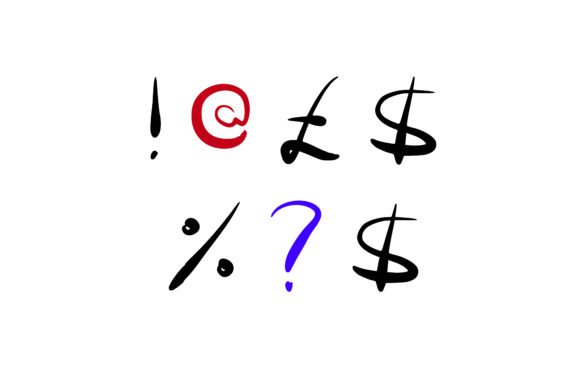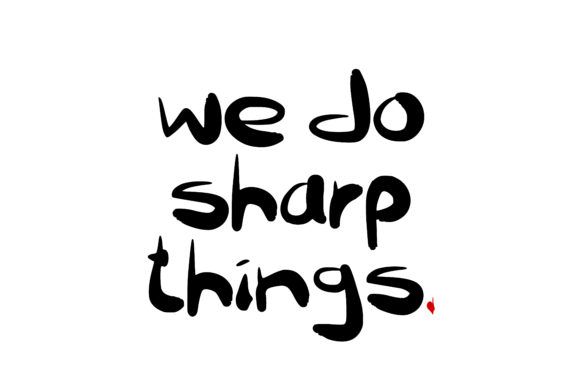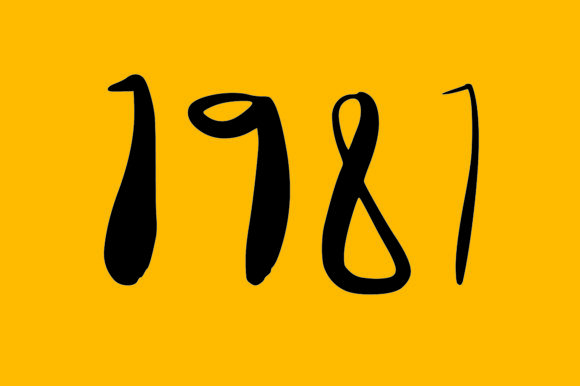
Introduction to Sharp Things Font
A mixture of sharp features with some rounded elements give this a dark Halloween themed font a unique charm.
Key Features of Sharp Things Font